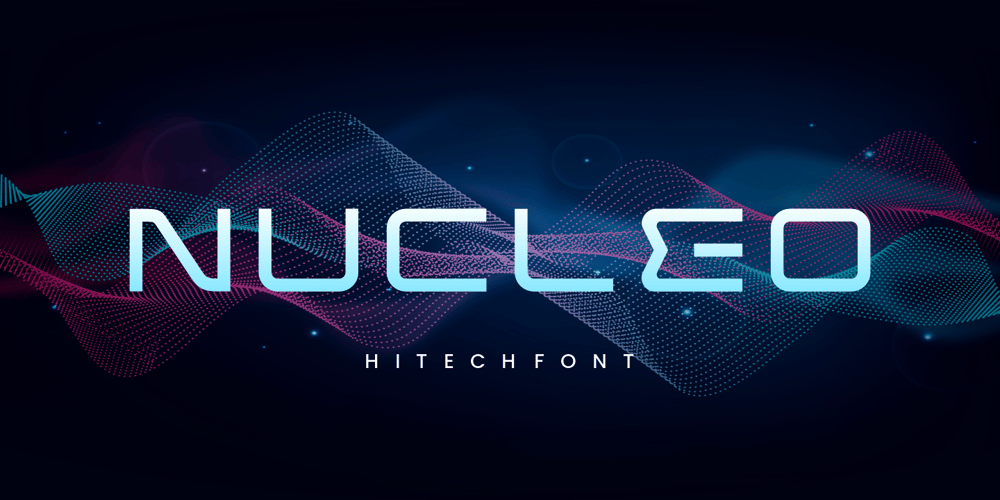
Nucleo Font Family was designed by Burhan Afif and published by HansCo. Nucleo contains 1 styles and family package options. INTRODUCINGNUCLEO – Modern Display typeface!NUCLEO is a modern monoline font with unique style that will make your design looks modern and futuristic. You can use this font for any purpose, especially to make logotype like a technology logo brand. This typeface is comes in uppercase, lowercase, punctuation, symbols, numerals, etc also support multilingual.Enjoy!